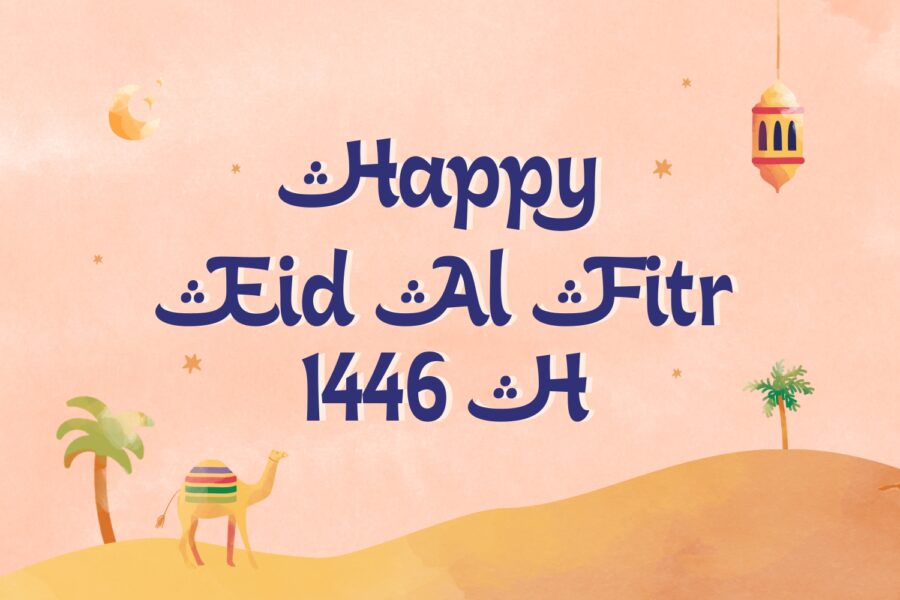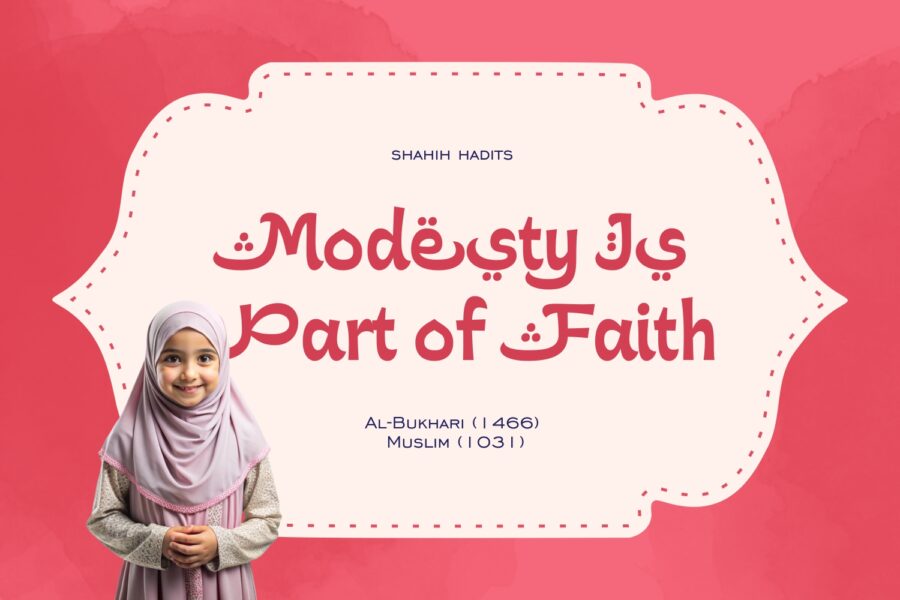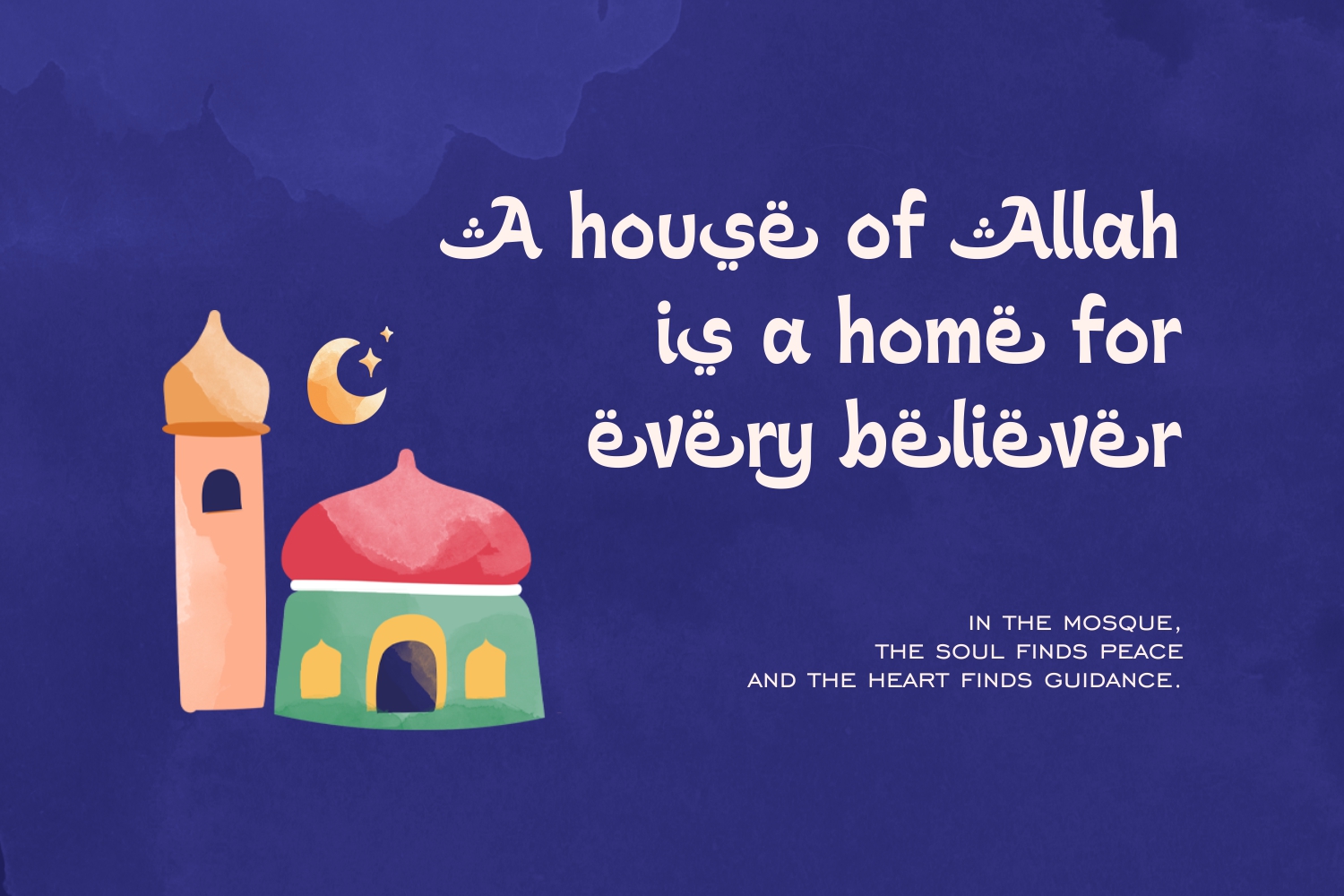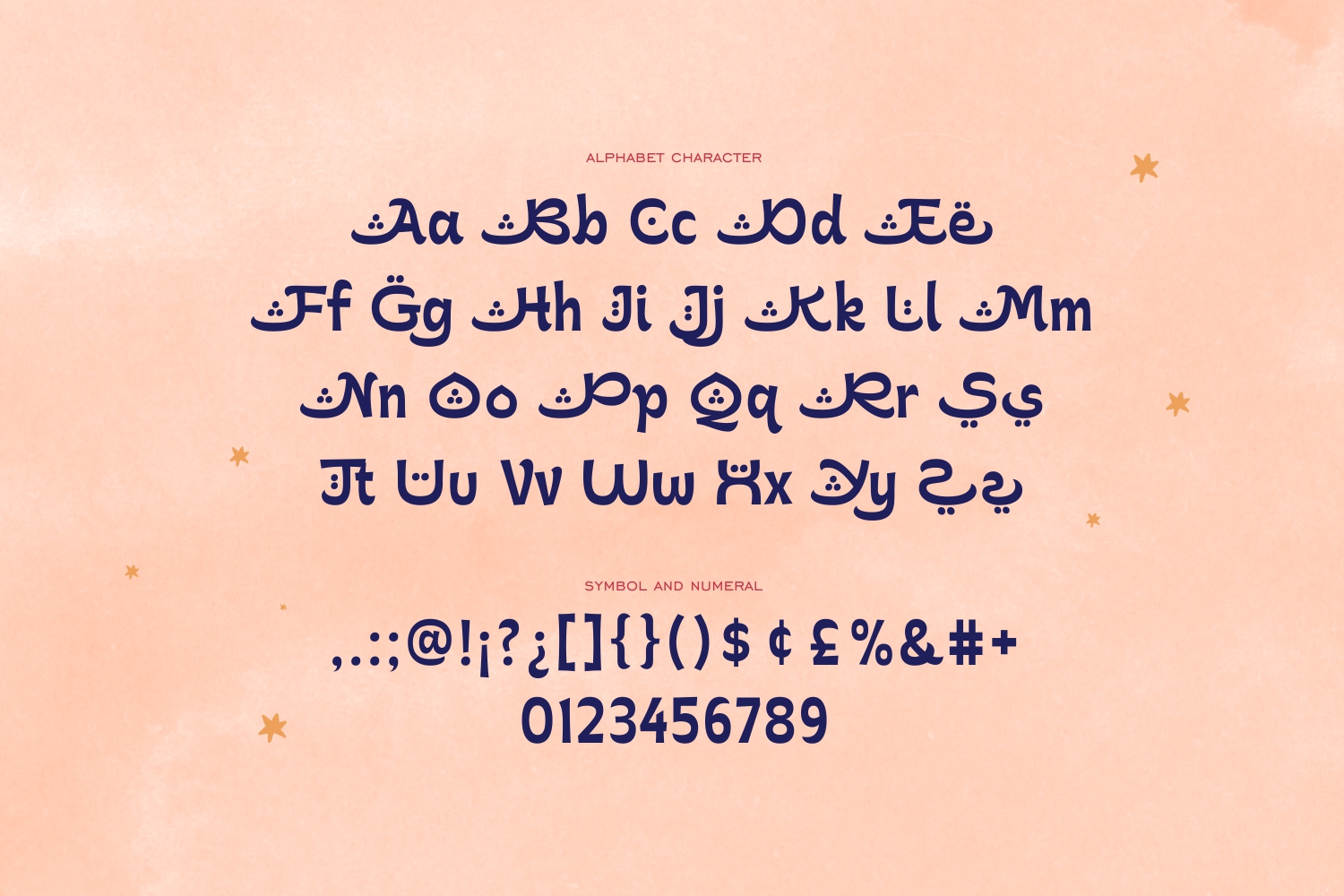
Hadiqah is a bold and casual Arabian style display font that combines playfulness with cultural authenticity. Its rounded strokes and friendly personality make it perfect for children’s books, Islamic events, festive greetings, and creative branding. The font captures a balance between tradition and modern casual style, making your designs approachable and full of character.
With a complete set of letters, numbers, and symbols, Hadiqah is versatile for posters, Ramadan and Eid cards, social media templates, packaging, and more. Its bold appearance ensures strong readability while the casual touch adds warmth and friendliness, giving every project a lively and inviting look.